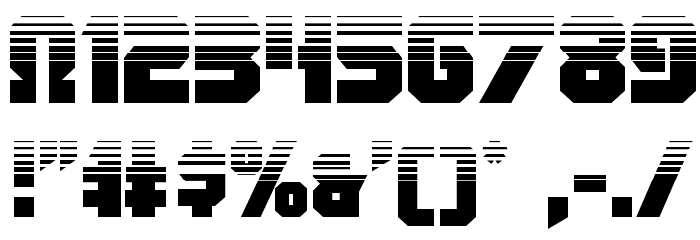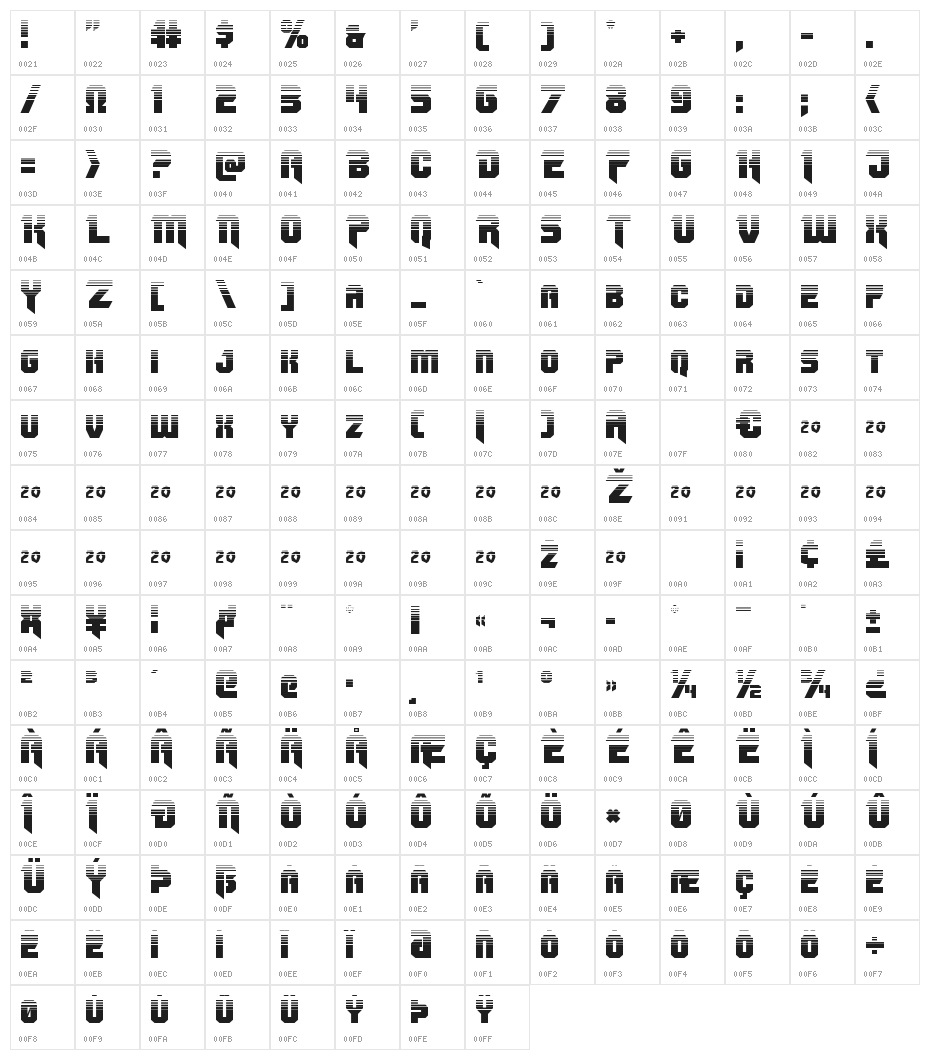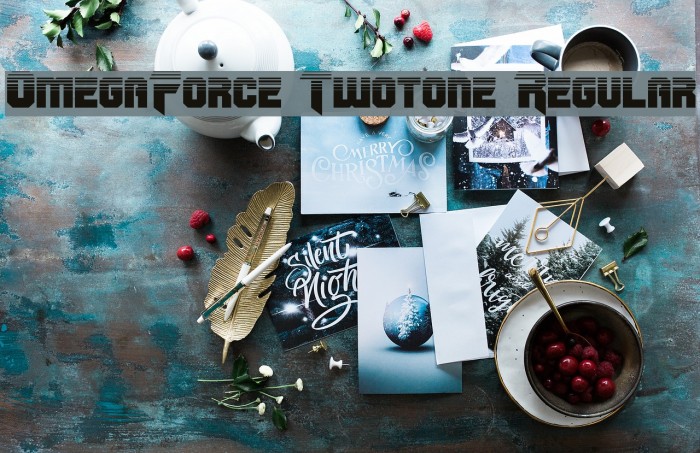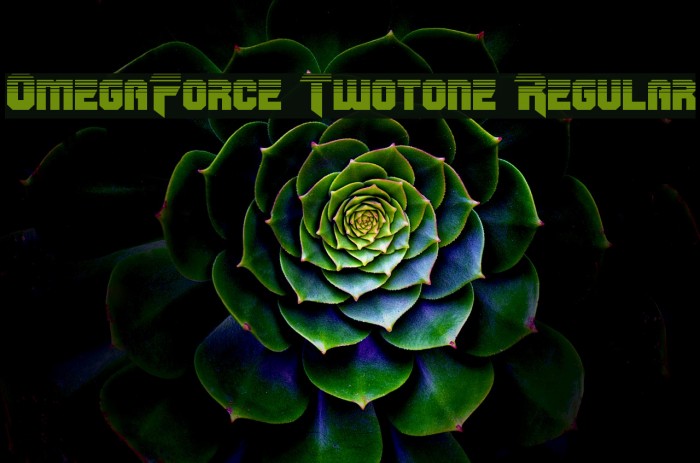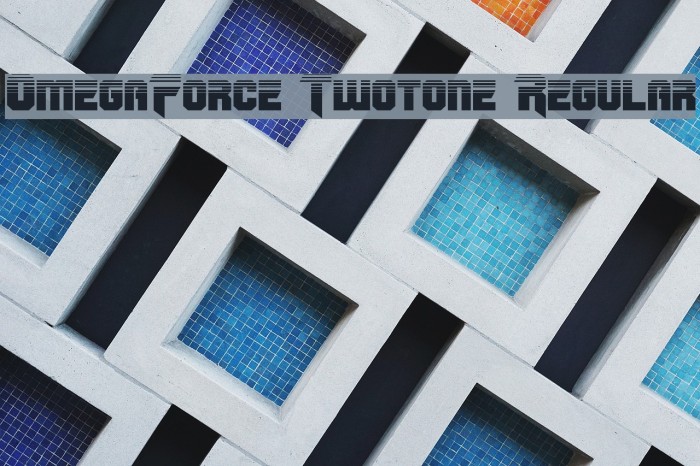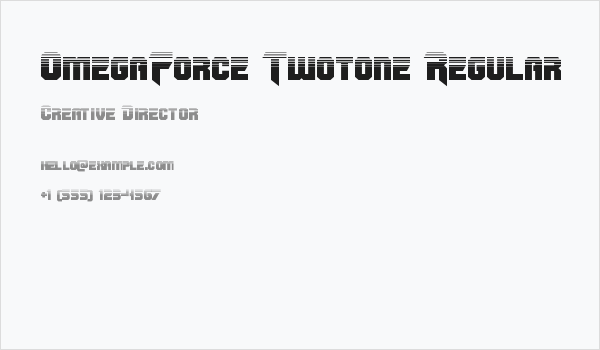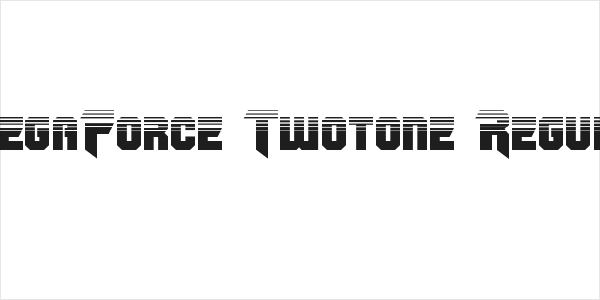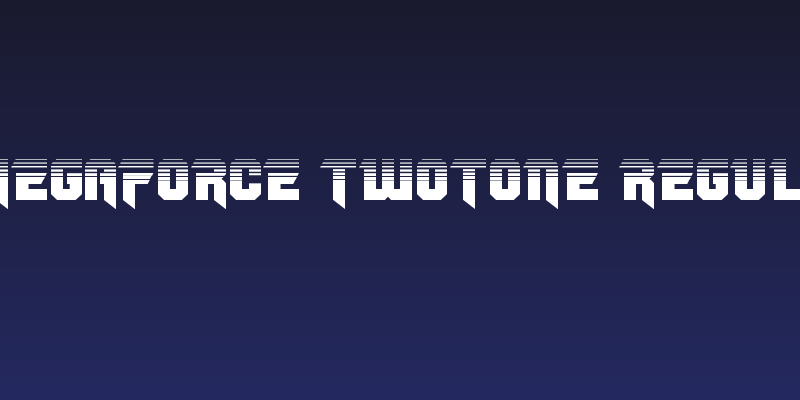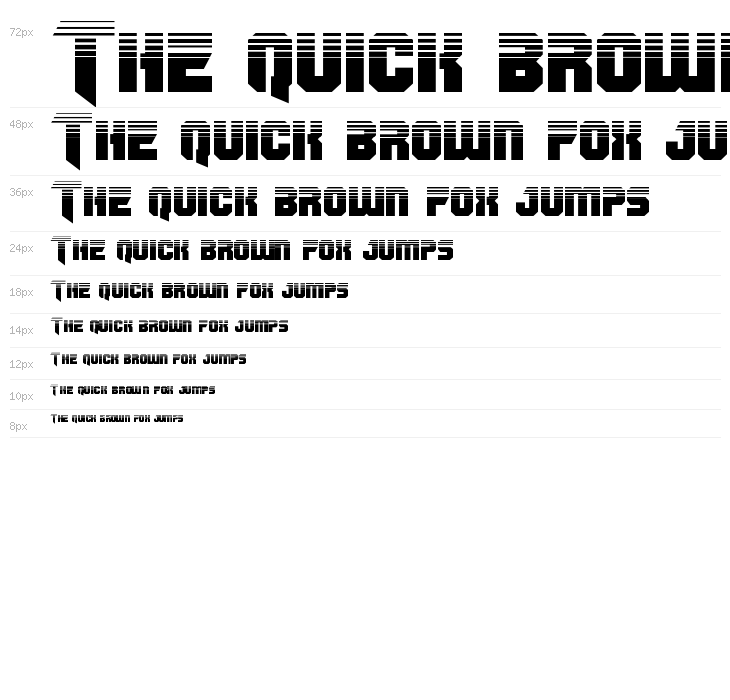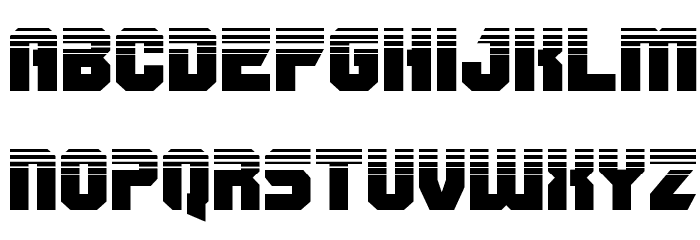
OmegaForce Twotone Regular Font
OmegaForce Twotone Regular Description
This font features a bold, futuristic design with a two-tone effect that creates a striking visual impact. The uppercase letters are characterized by strong geometric shapes and sharp angles, giving them a dynamic and modern appearance. The lowercase letters maintain the same boldness and angularity, ensuring consistency throughout the typeface. The numerals are equally bold, with a design that complements the letters. Special characters are included, each designed with the same attention to detail and style. The font's unique two-tone effect is achieved through horizontal lines that create a sense of movement and depth, making it ideal for projects that require a bold and eye-catching typeface.
Overall StyleFuturistic
Proposed ProjectsIdeal for sci-fi themed designs, video game titles, posters, and branding that requires a modern and bold aesthetic.